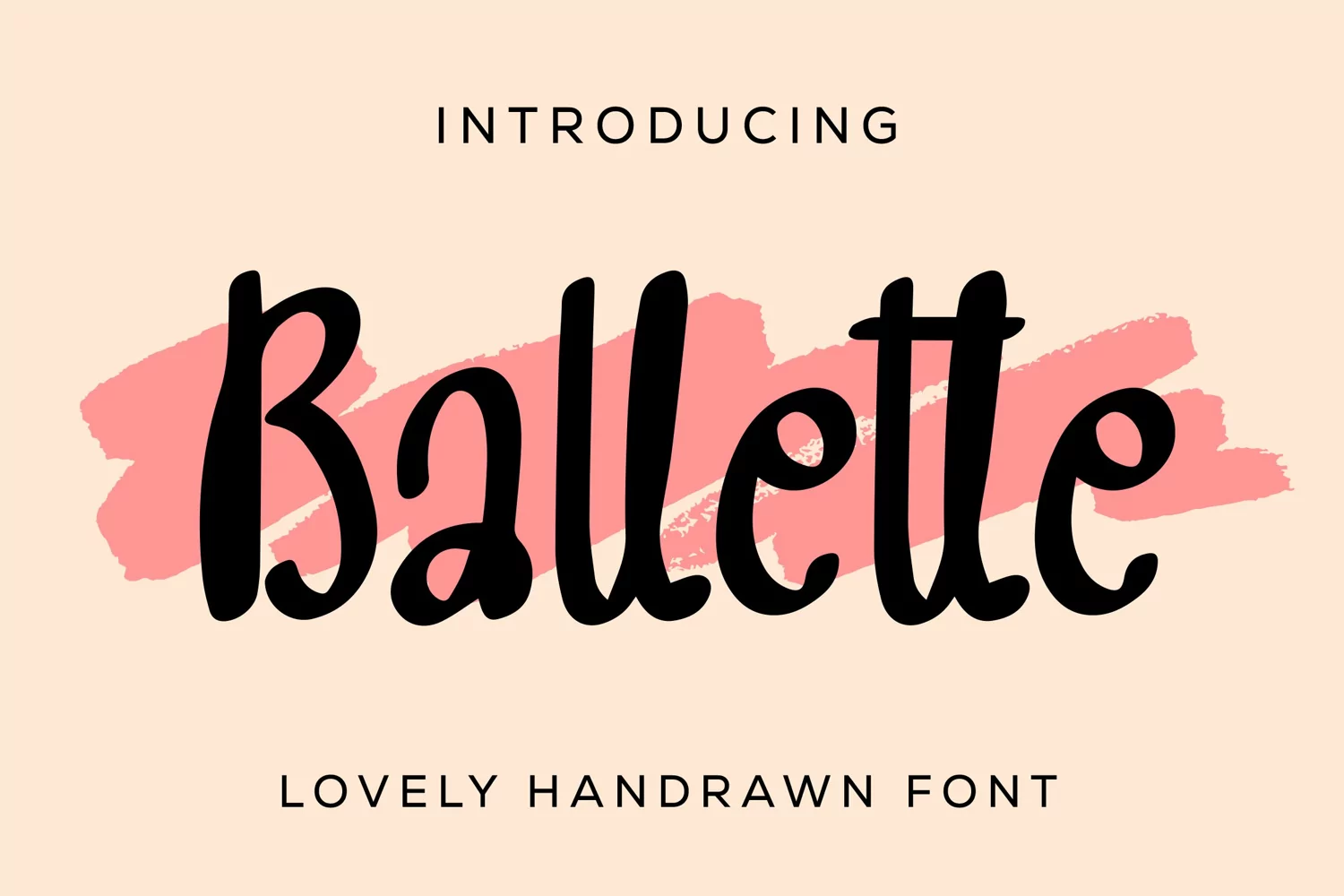
Ballette - Lovely Handrawn Font that contain lowercase, uppercase, symbol, and also support multi language. There’s a lot ligatures in this font. This Font also comes with ligatures, alternates and many more. this font suitable for fashion, branding, catalog and other design what you want.